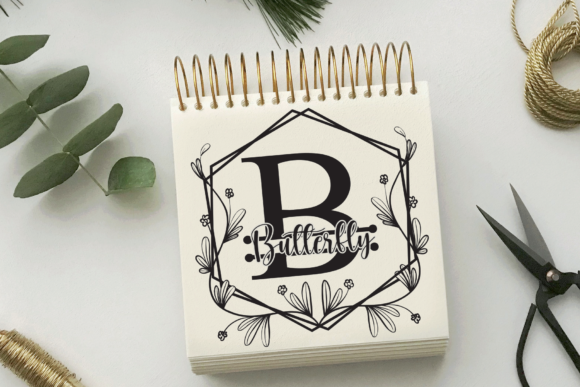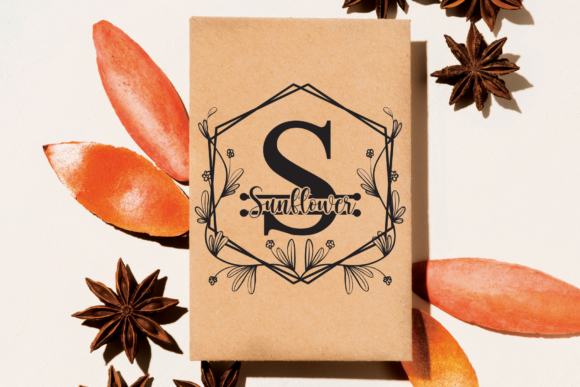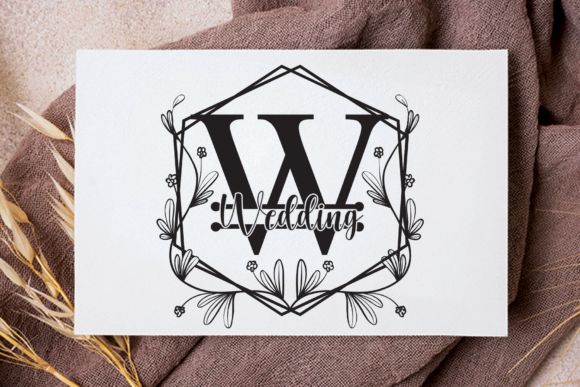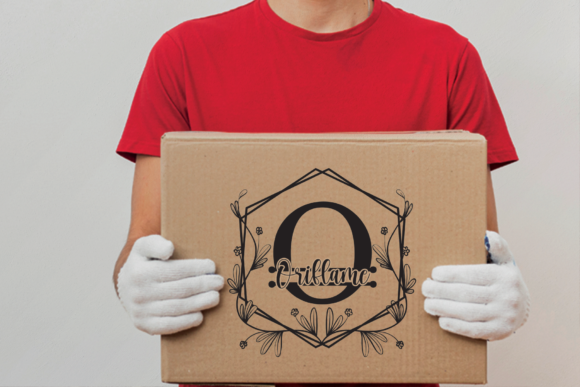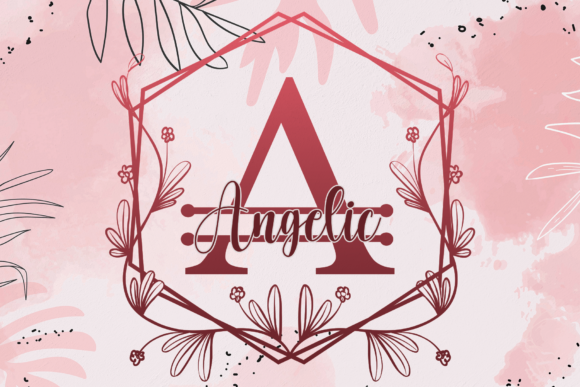
Introducing Angelic Font: Elevate Your Designs with Elegance and Romance
Are you a designer, crafter, or someone who loves to add a personal touch to their correspondence? Look no further than the stunning Angelic Font. This beautiful and chic decorative font is perfect for anyone looking to infuse their love letters, wedding invitations, and design projects with a touch of romance and sophistication.
The Beauty of Angelic Font
Angelic Font is a true masterpiece, boasting elegant and intricate details that will leave you and your audience mesmerized. Its romantic and lovely appearance makes it an ideal choice for a variety of projects, from wedding planners and stationery designers to crafters and DIY enthusiasts. Whether you’re creating a custom wedding invitation, a heartfelt love letter, or a unique design piece, Angelic Font is sure to elevate your work to new heights.
With Angelic Font, the design possibilities are endless. Imagine adding this gorgeous font to your:
- Wedding invitations: Make your special day even more unforgettable with beautifully designed invitations that set the tone for a romantic and memorable celebration.
- Love letters: Add a touch of elegance and sentiment to your heartfelt letters, making them a treasured keepsake for years to come.
- Stationery: Elevate your stationery designs with a font that’s both sophisticated and charming.
- DIY projects: Use Angelic Font to add a personal touch to your craft projects, such as handmade cards, gift tags, and more.
Why Choose Angelic Font?
So, what makes Angelic Font so special? Here are just a few reasons why designers and crafters alike will fall in love with this beautiful font:
- Elegant and sophisticated: Angelic Font exudes refinement and poise, making it perfect for projects that require a touch of luxury.
- Romantic and lovely: This font is sure to capture the heart of your audience, adding a sentimental and emotional touch to your designs.
- Versatile: Use Angelic Font for a wide range of projects, from digital designs to print materials.
Tips for Using Angelic Font
To get the most out of Angelic Font, here are a few tips to keep in mind:
- Pair with complementary fonts: Combine Angelic Font with other fonts that complement its elegant and romantic style.
- Experiment with colors: Try pairing Angelic Font with a range of colors to add depth and visual interest to your designs.
- Use it sparingly: While Angelic Font is beautiful, it’s best used in moderation. Balance it with other design elements to avoid overwhelming your audience.